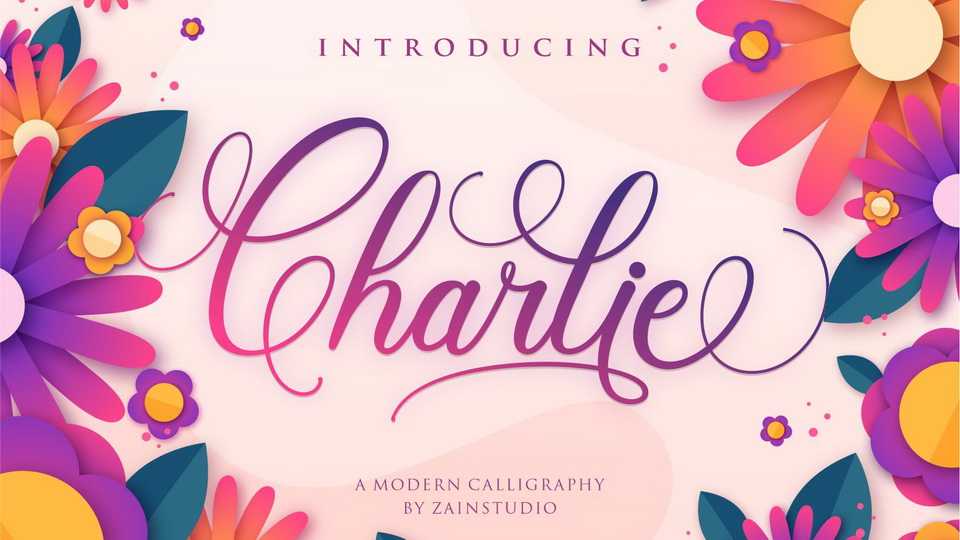
Download Charlie font, an elegant and flowing handwritten typeface. Charlie maintains its classy calligraphic influences while feeling contemporary and fresh.
Designer: ZainStudio